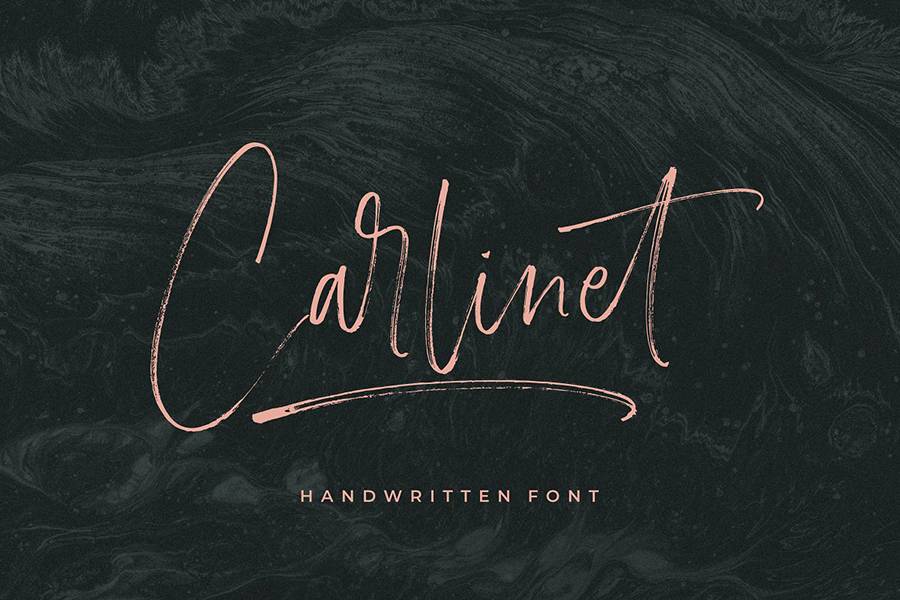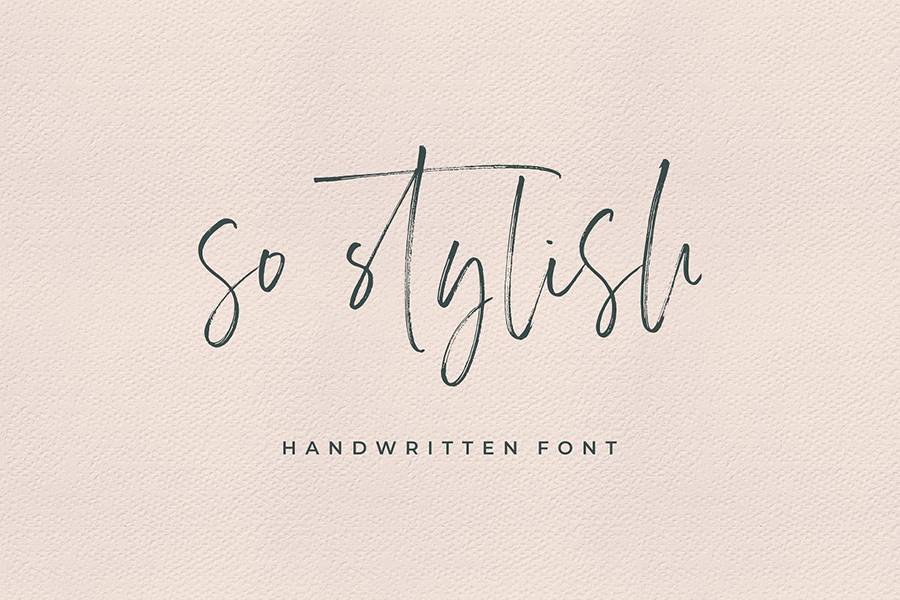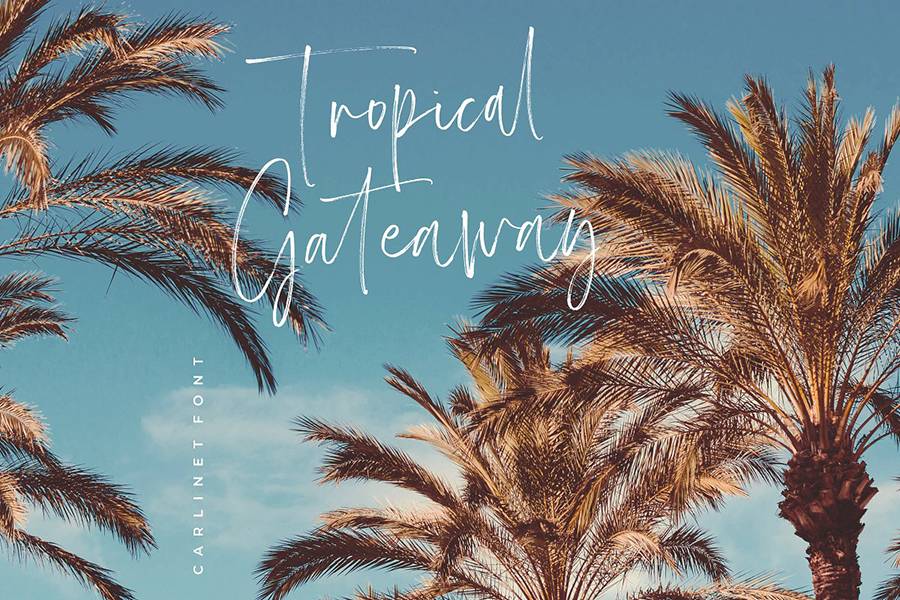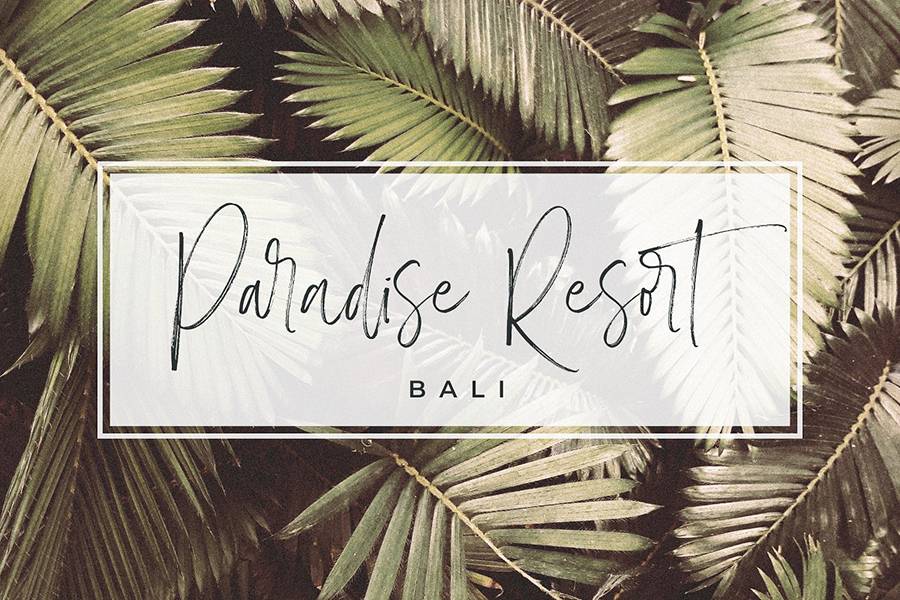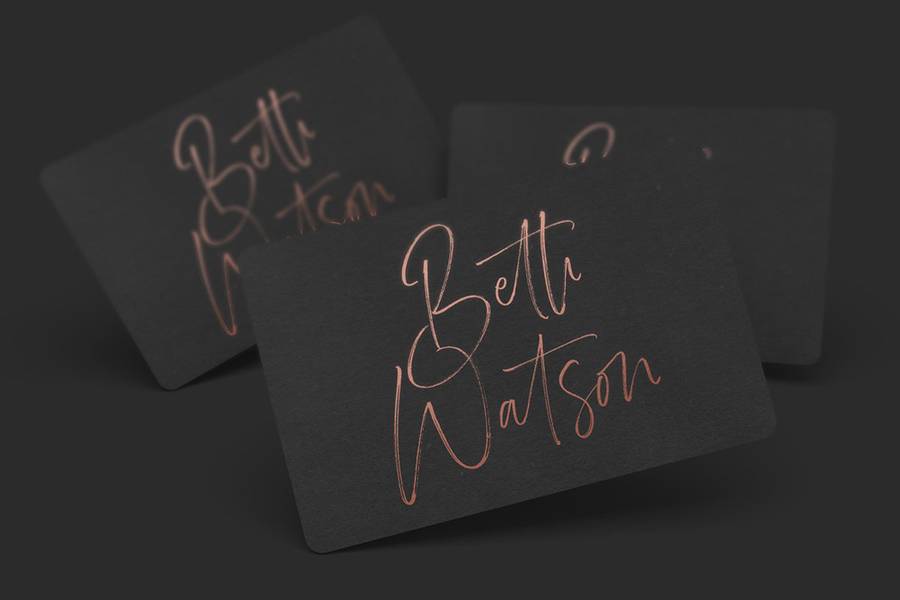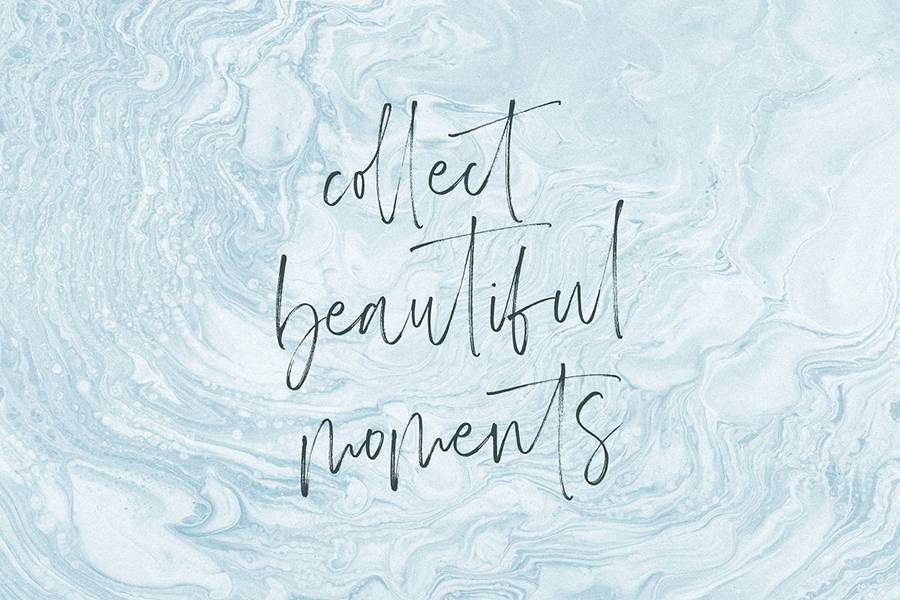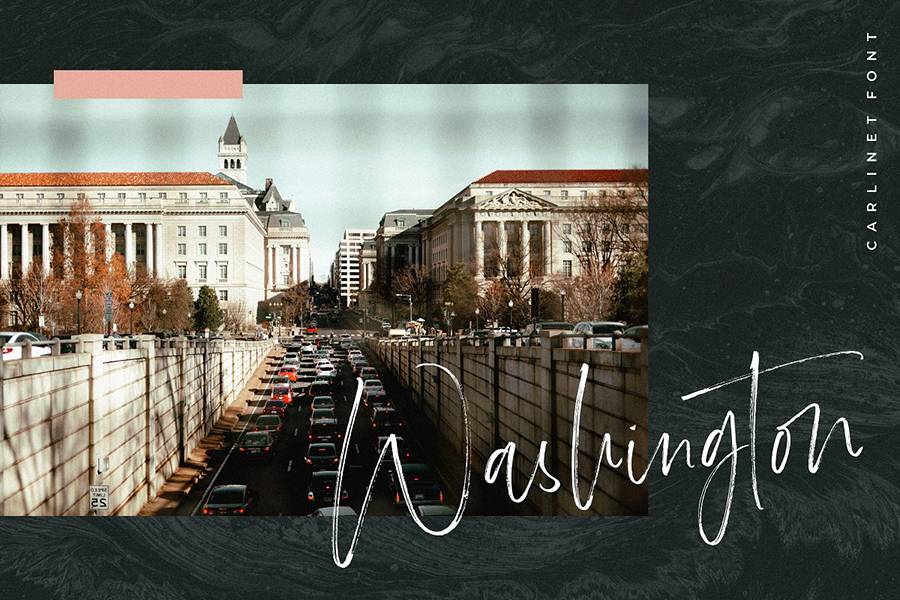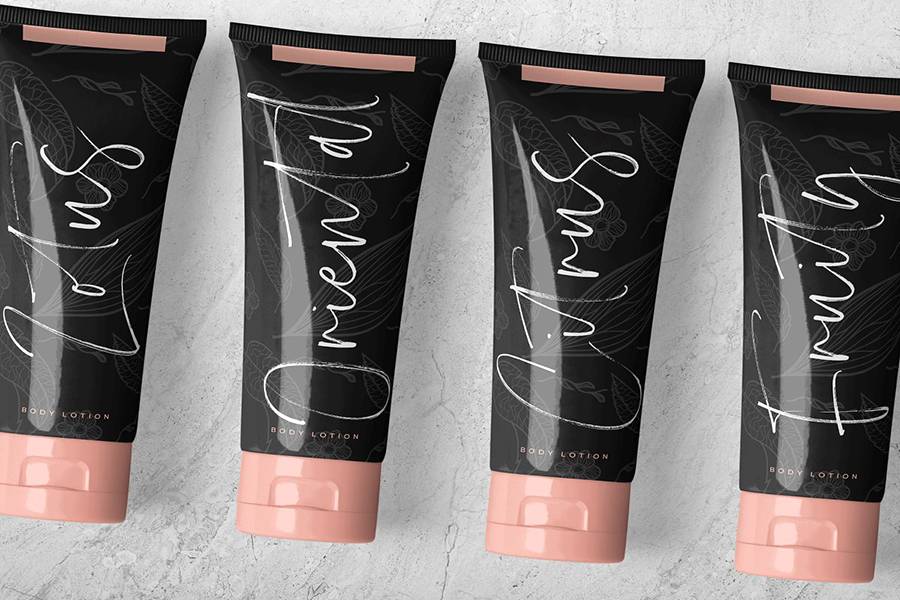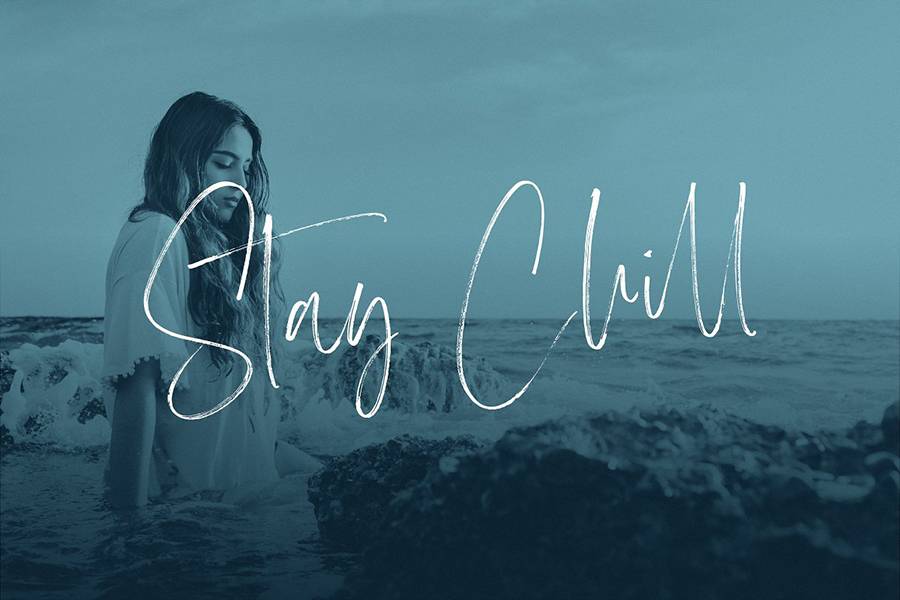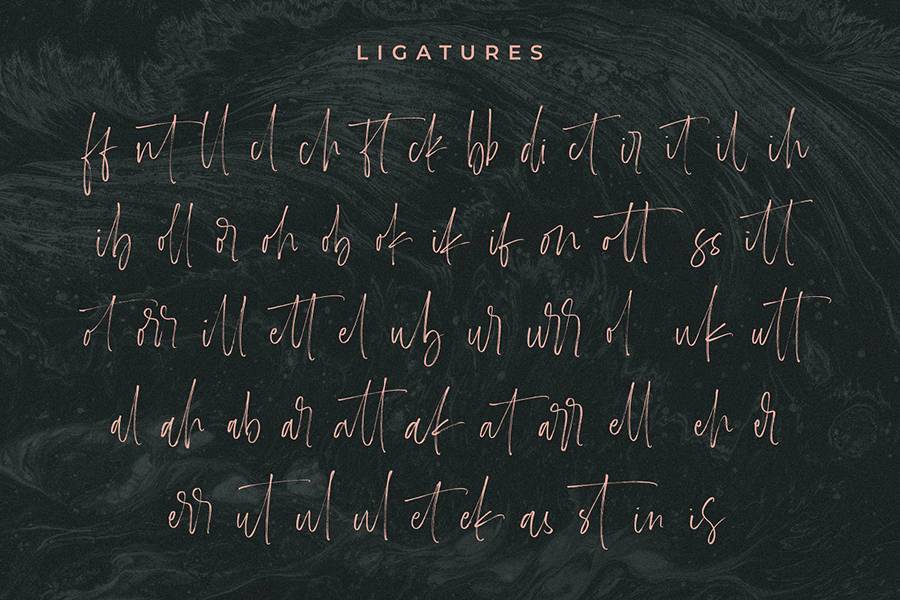
Carlinet Handwritten is a delicate, elegant script font with a slender, airy appearance that mimics natural, flowing handwriting. Its thin, slightly irregular strokes and tall, narrow letterforms give it a personal, intimate feel, making it ideal for stylish invitations, branding, and editorial projects that want to convey sophistication with a casual, modern touch. This font shines in creative contexts where a graceful, authentic handwritten style adds warmth and personality.
Carlinet Handwritten Font
About Carlinet Handwritten Font